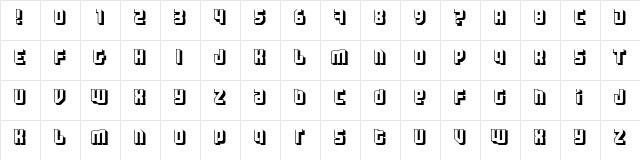
Three the Hard way shadowed Regular
Design Context for Three the Hard way shadowed Typeface
Three the Hard way shadowed is built around its visual character rather than neutral utility — its distinctive forms are designed to make an impression at display sizes.
Font Pairing: Pair with a clean neutral sans-serif for body copy to let Three the Hard way shadowed's character lead without overwhelming the composition.
Pro Tip: Treat Three the Hard way shadowed as the centrepiece of your typographic hierarchy. One strong heading set in a decorative face can carry an entire layout.